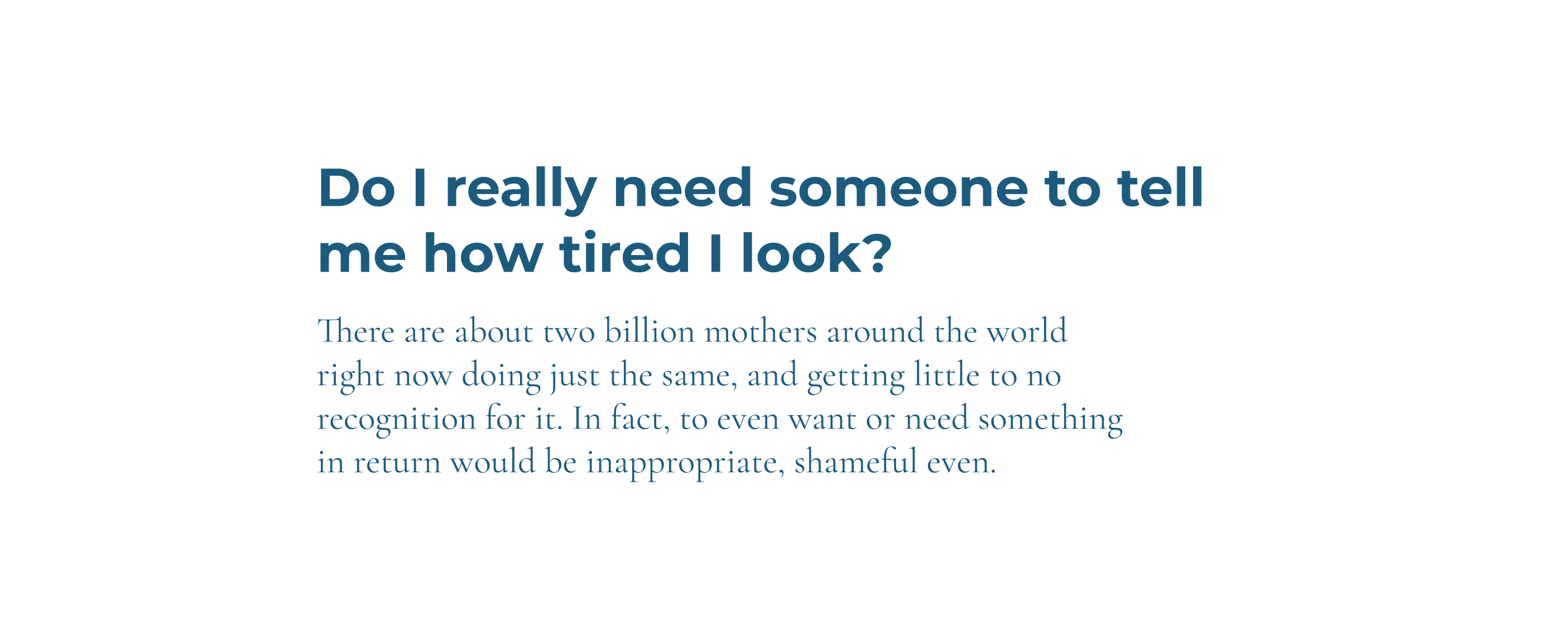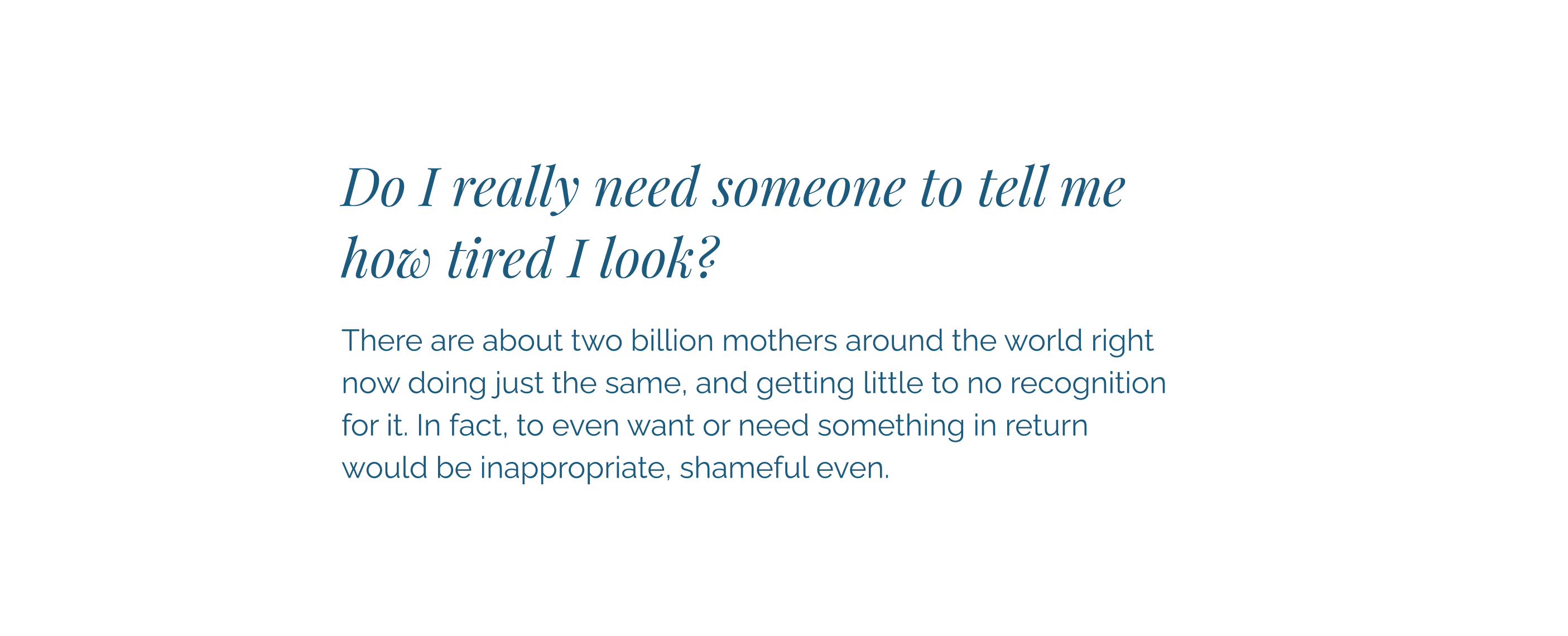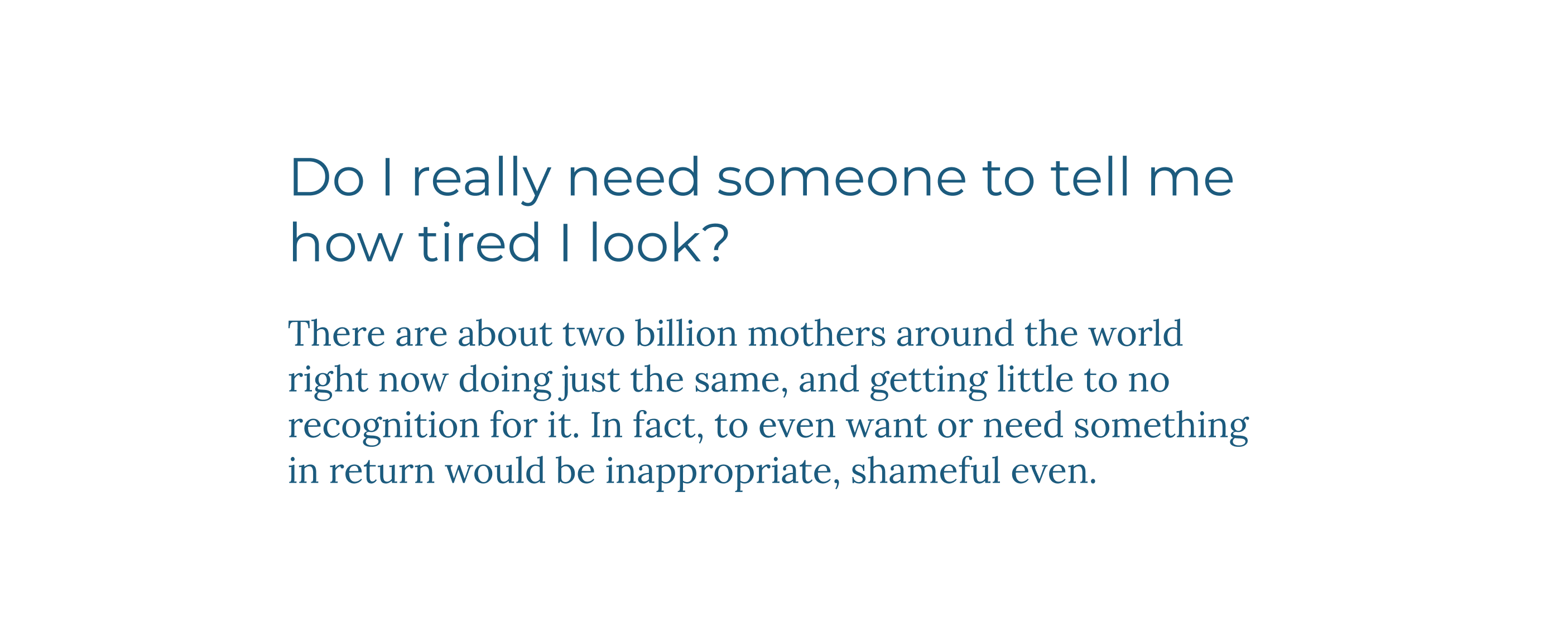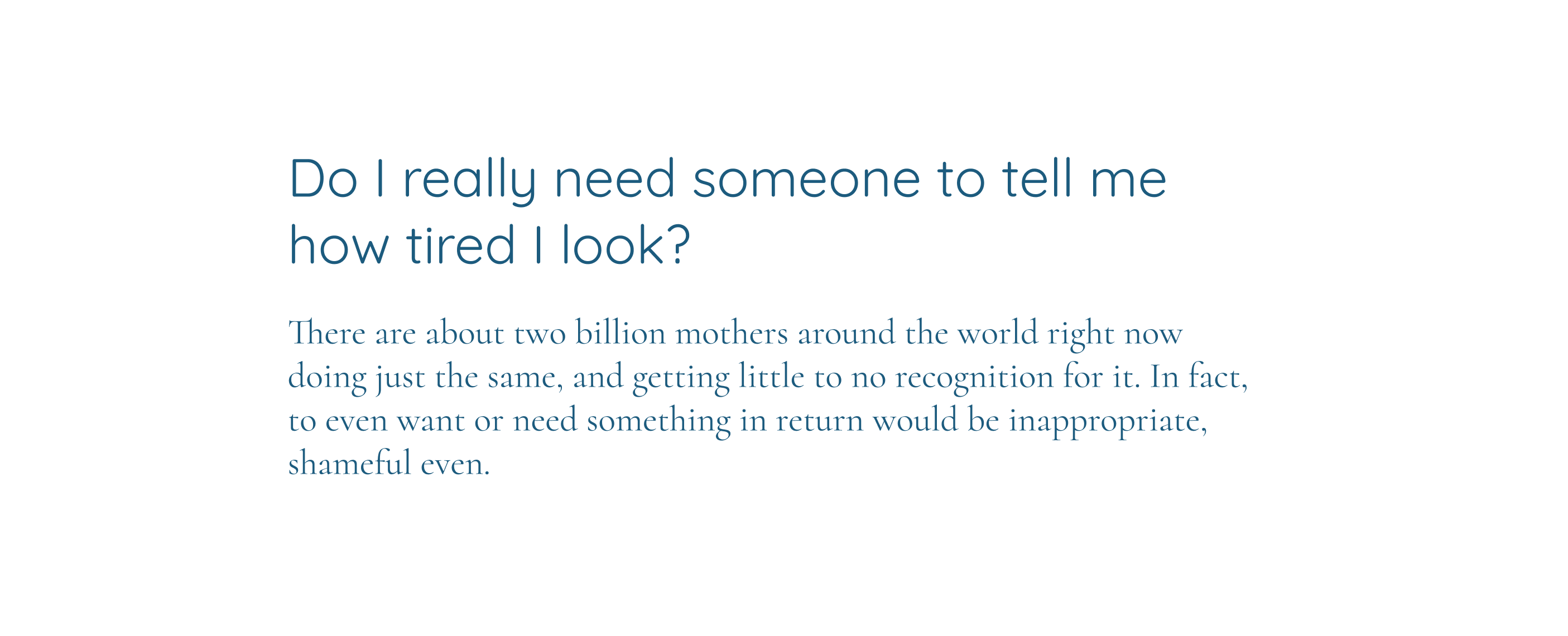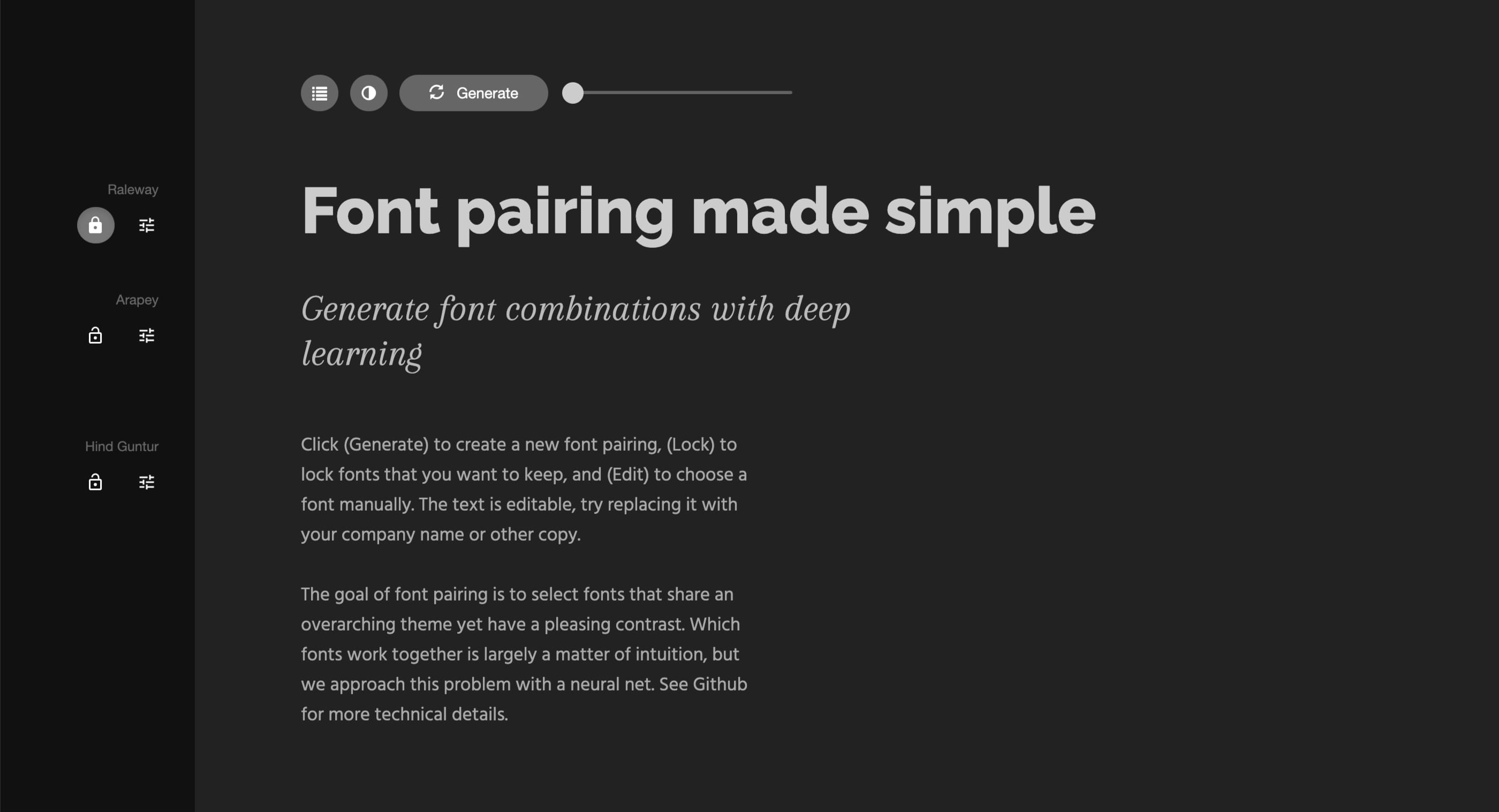
An exploration of AI’s typographic capability and what you can learn from it
How do you go about picking fonts for a project? Do you just “wing it?” Pick something that looks good and is somewhat aligned with the requirements of the project? Or do you always use the same fonts again and again, regardless of requirements? Maybe you have a personal preference for some of these fonts?
And how do you pair fonts? Just pick two that look relatively good together? Or do you make an effort to use the basic font pairing guidelines by trying to match their x-height, for example? Do you go for a safe choice and just use a superfamily of fonts like Roboto and Roboto Serif?
Picking and pairing fonts really well is hard. It takes a lot of time too, especially if you don’t have experience with it. Can AI tools help you do this task better and quicker? Can it teach you how to do it well, if you’re less experienced?
Let’s take a look at a couple of tools that use AI for font picking and pairing. How good are they? Are they better than you and can you learn from them?
Fontjoy
Fontjoy uses machine learning and a deep learning model to map font features and come up with pairings. Its’ description of how it works isn’t very detailed and it doesn’t disclose how many font features the tool uses for evaluation.
I can pick a font that I want to start with for headings or body text. I picked Raleway Bold for headings. Then I can lock the font I picked, and decide what type of pairing I want — a contrasting one or a similar one. There are five options: high contrast, more contrast, balanced, more similar, and very similar. I chose high contrast and hit the Generate button with high expectations.
The first pairing it gives me is… surprisingly good. It suggests I combine it with Arapey for subtitles and Hind Guntur for body text (Fig 1).
Fig 1: The first recommendation from Fontjoy is surprisignly good. It recommends to pair Raleway with Arapey and Hind Guntur.
I click Generate again and complete disappointment follows. It now says that I should use Snowburst One for subtitles and Scope One for body text (Fig 2). The latter is a decent recommendation, but the one for the subtitles is a total miss. I can’t help but lose confidence in the capabilities of the tool.
Fig 2: The second recommendation is a total miss.
I click the Generate button a couple more times. The tool gives more options but they feel somewhat limited. I’m not sure whether that’s good or bad. Some font suggestions repeat numerous times. I guess it’s good because the tool zeroed into the font pairings that work well. It feels that one in six suggestions includes a total miss. I define a total miss as something I would never use, mostly because it suggests a decorative font, like Snowburst One above (Fig 2).
I also consider a total miss the suggestion to use Montserrat Alternatives for body text (Fig 3). It has too much character to be used for that.
Fig 3: The third recommendation is also a total miss.
But how could the tool know something like this? Is character design one of the features considered? It can’t be. That’s something an experienced designer considers — the tiniest details in the letter design of a font. Is it legible and will it improve the readability? In the case of Montserrat Alternatives, it does the opposite.
Fontjoy Pros:
• Can come up with decent font pairings suggestions once you already have one font picked (for either headings or body text)
Fontjoy Cons:
• Starting completely from scratch, without a font already picked, isn’t very useful
• No font picking capabilities, just pairing
• Includes low-quality fonts which are the main contributors to “total miss” pairings
• There’s no meaning to the choices, the tool pairs fonts based on the contrast settings provided
• No way to tell the tool what the fonts will be used for — there’s no context to its suggestions
There are two more similar tools, but it’s unclear how they work so I didn’t explore them in detail:
ChatGPT
Now let’s take a closer look at the tool that everyone has been raving about — ChatGPT. Can it pick and pair fonts well? Is it comparable to a designer’s capabilities?
Font pairing
I came up with a simple prompt to test the ChatGPT’s capabilities of font pairing:
Come up with a pairing of two fonts for a website of a female author writing about motherhood. It needs to feel modern and candid.
I generated five suggestions, let’s take a closer look at the first three. The first one that ChatGPT suggested was Montserrat Bold for headings and Cormorant Garamond Regular for body text. Here’s how it explained its decision (Fig 4).